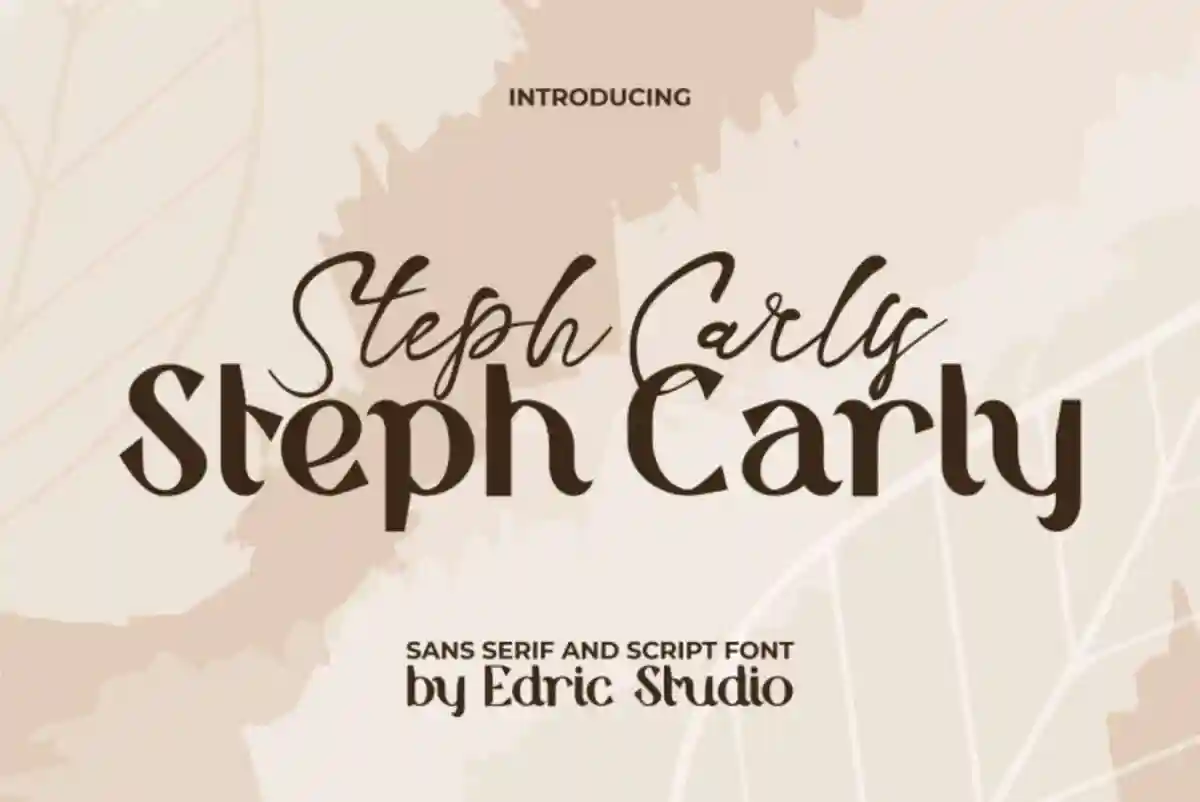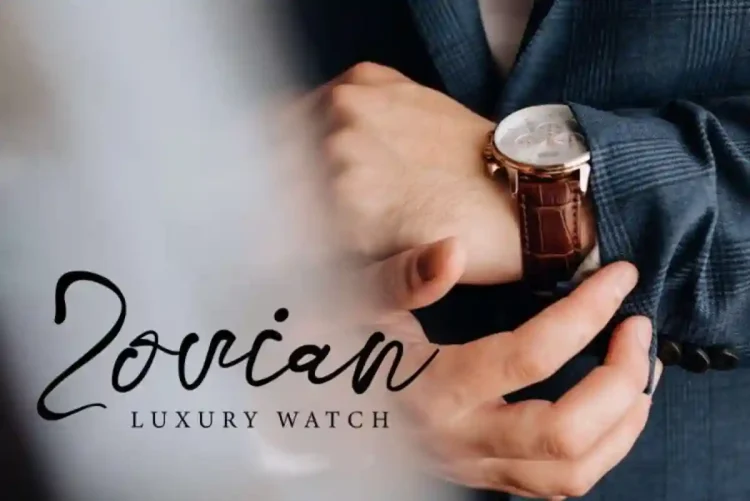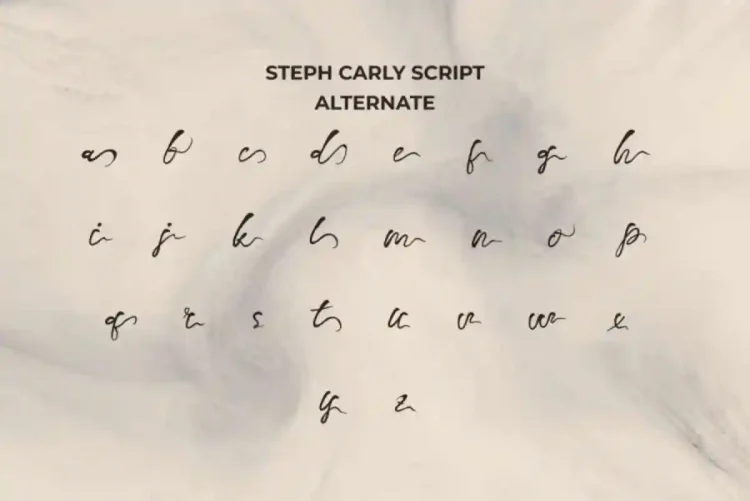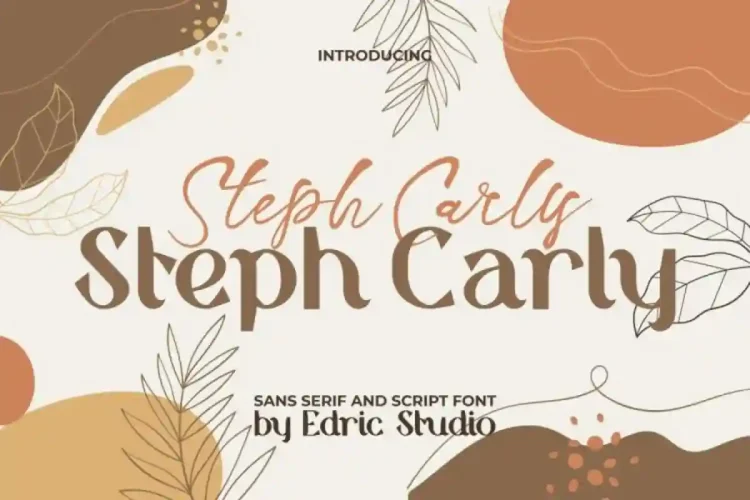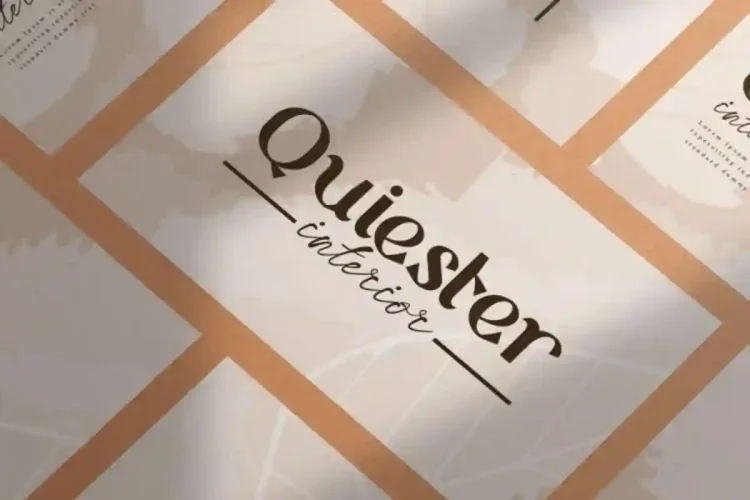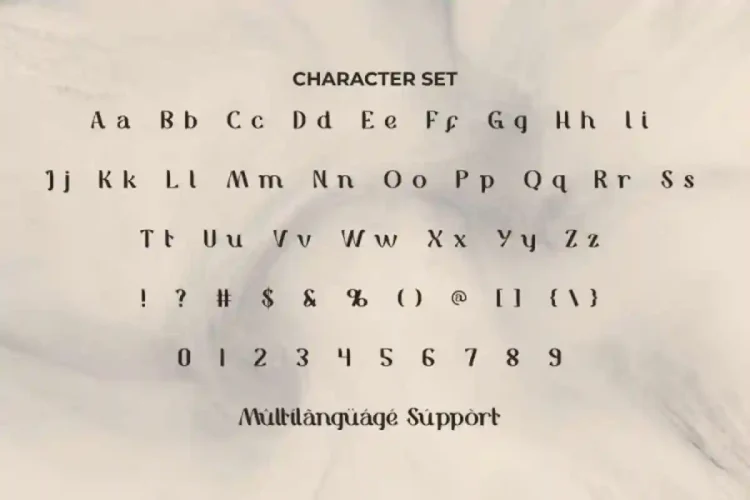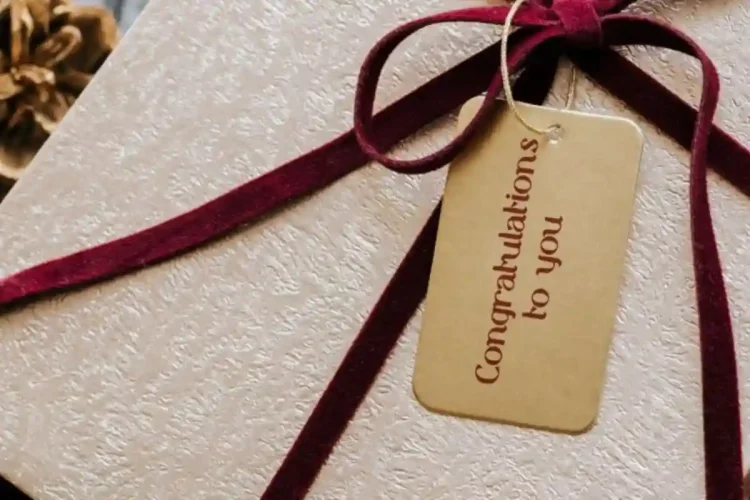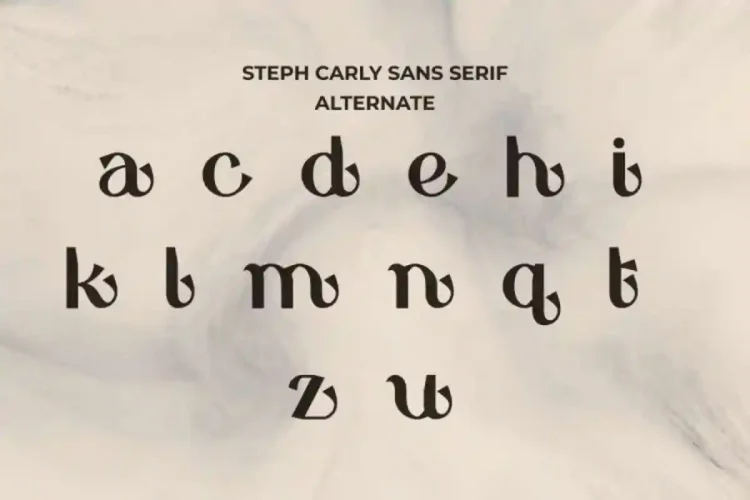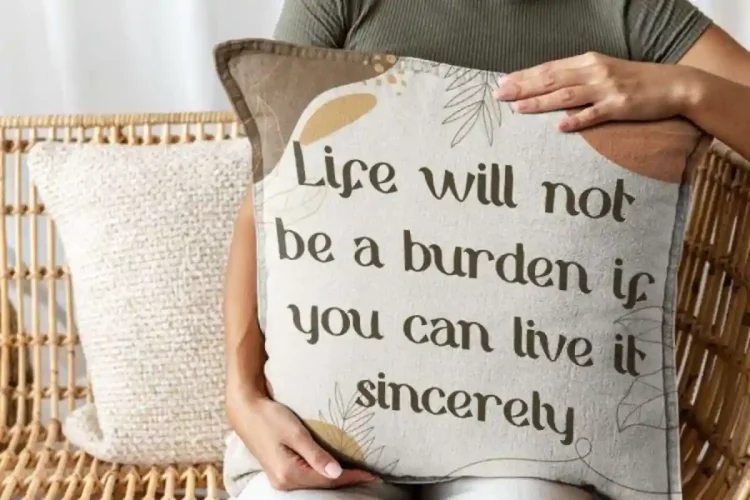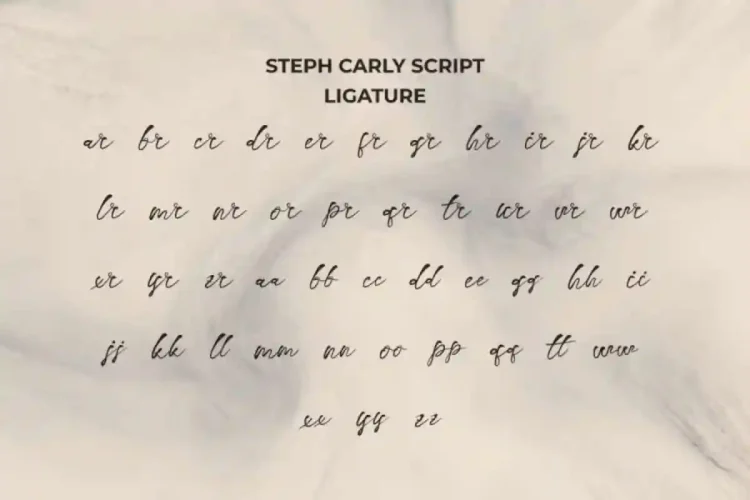
Steph Carly Modern Font Duo
Steph Carly Font is a stylish classic font duo with a modern touch, adding a timeless feel to this font duo. The fonts was handcrafted from our Studio here in, Indonesia. This stylish combination of Sans Serif and Script is designed to bring warmth, class, and versatility to your creative projects. Whether you are working on branding, packaging, signage, websites, or social media content, this font duo will make your design stand out with elegance.
Steph Carly Font Duo comes with two different styles: Sans Serif Display and Handwriting Script. It has a full set of Basic Uppercase and Lowercase Characters, Numbers, Punctuation and Symbols. Sans Serif with alternate additions, to make it have different variations in character. Don’t forget that the script is also equipped with additional ligatures to add artistic value to perfectly bound.
Steph Carly Font also supports multilingual characters which are ready to use either on Windows or Mac machines with a simple installation. There are lots of alternates and ligatures that you can use for your designs, so you can freely use alternative glyphs and make your designs more stunning and stand out. It’s tested to work well in the Adobe Apps (Illustrator, Adobe InDesign, Adobe Photoshop) even work on Microsoft Word. All of these characters are available through the glyph panel, moreover each letter has its own unicode (PUA) so you can access all the characters easily.